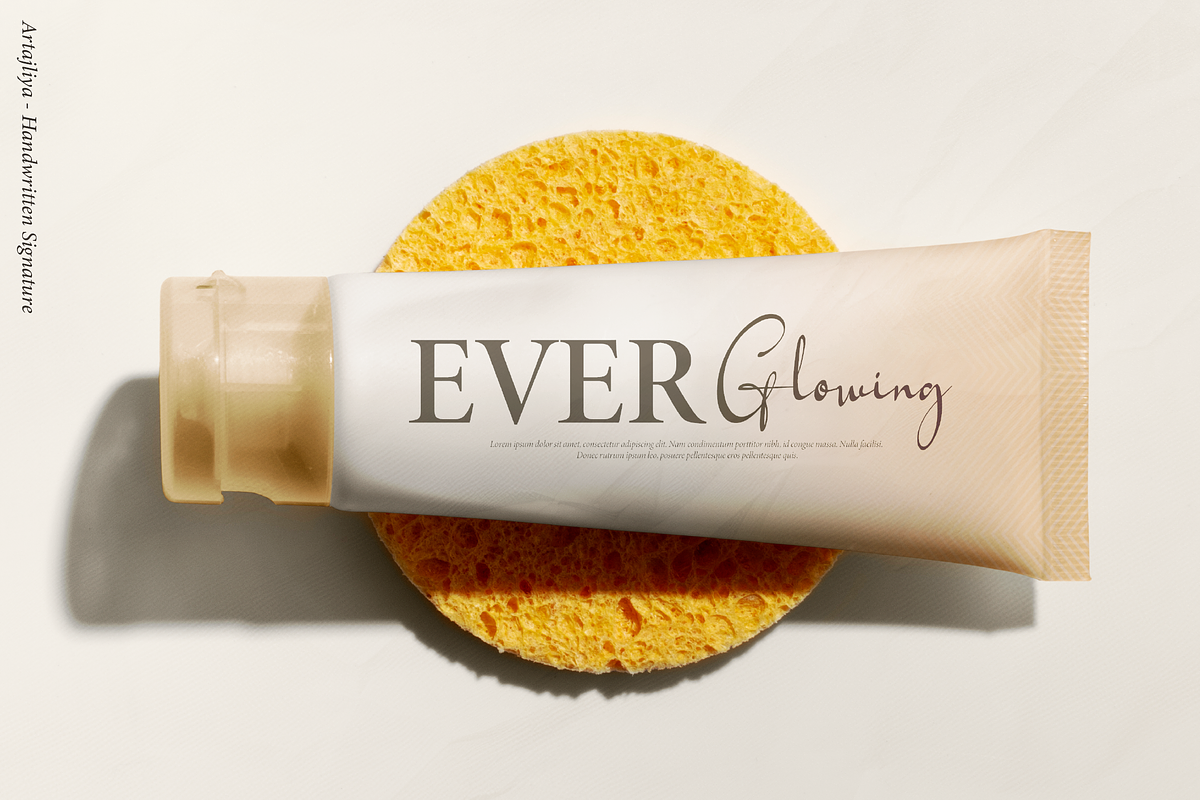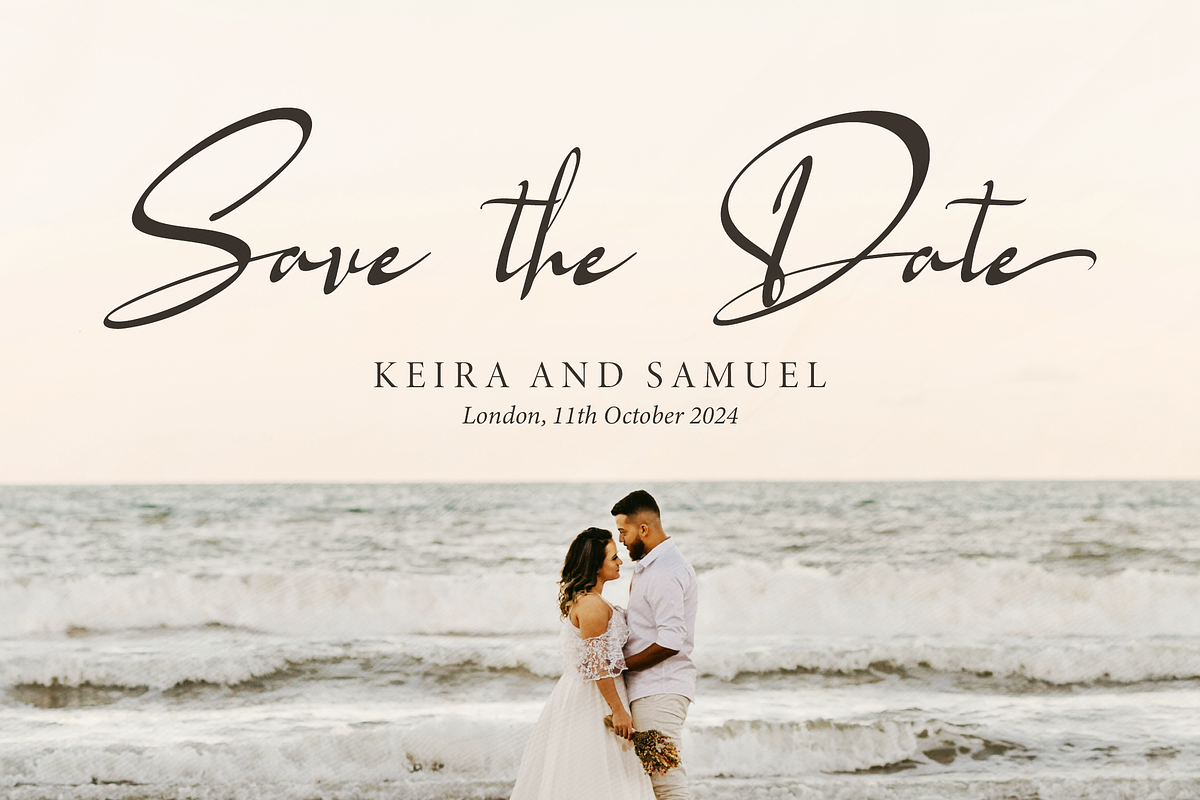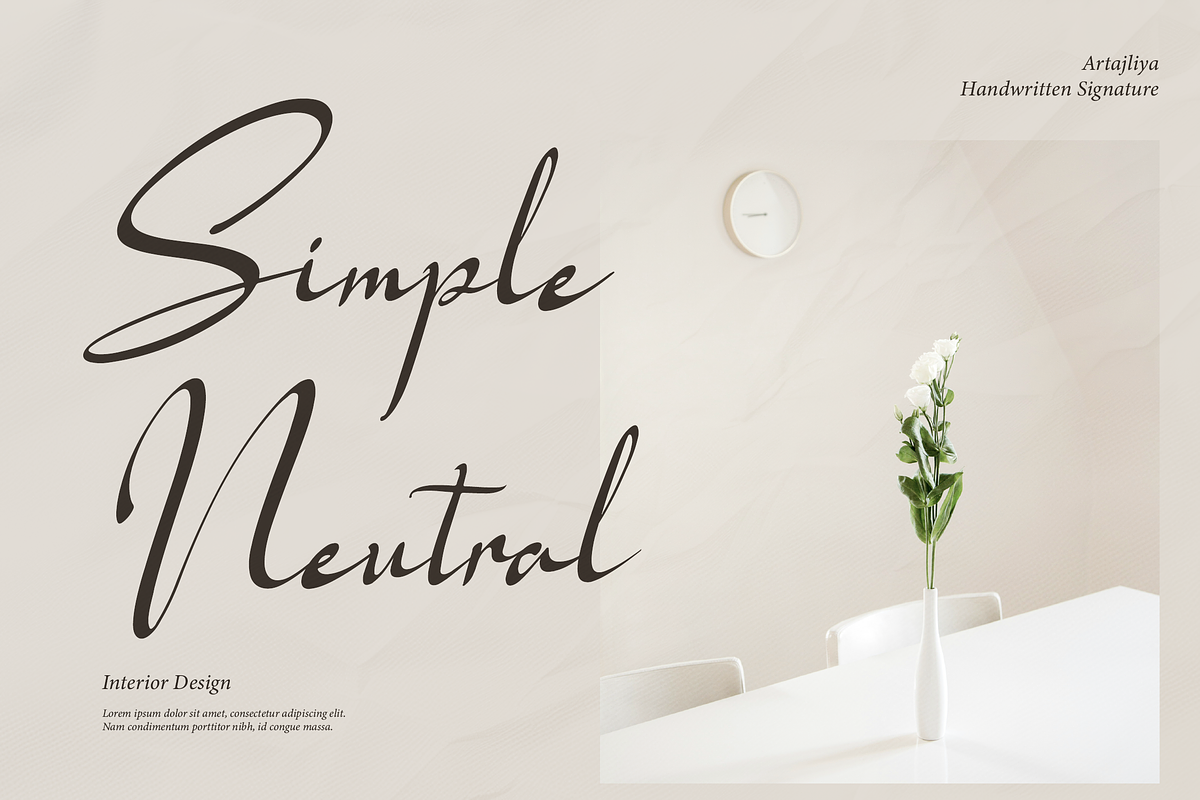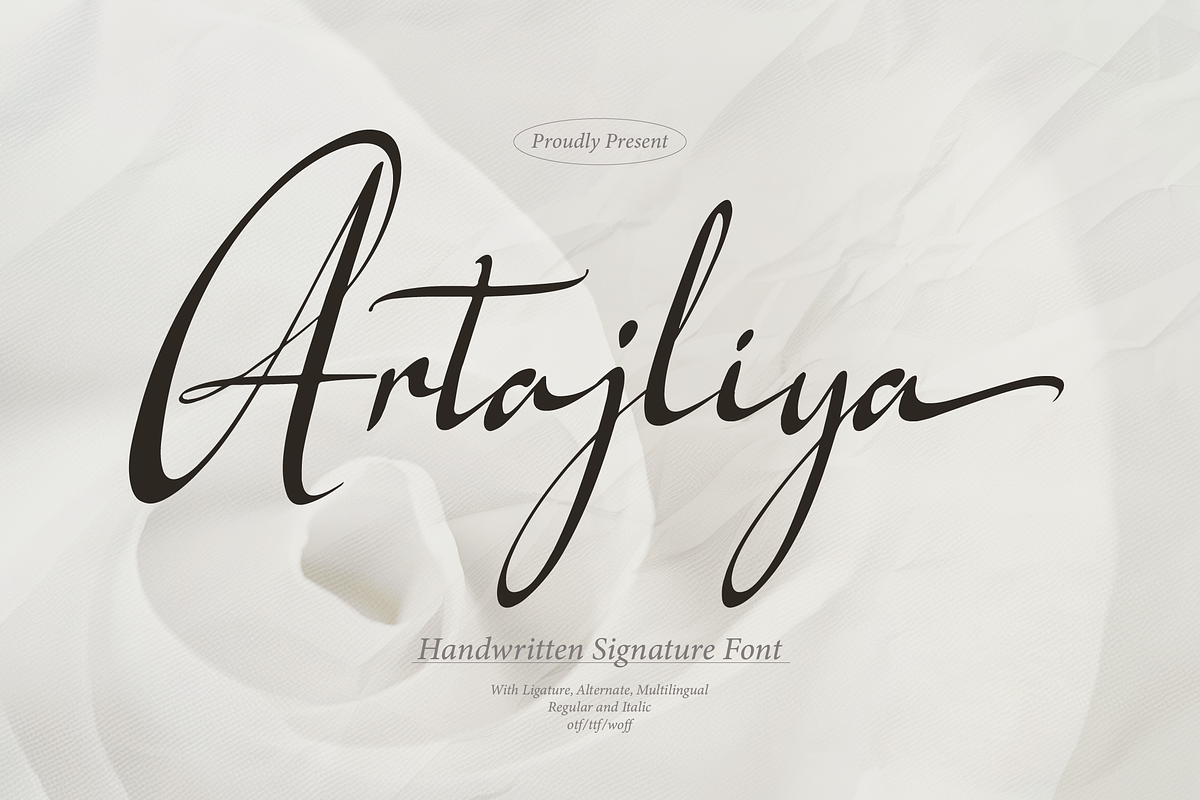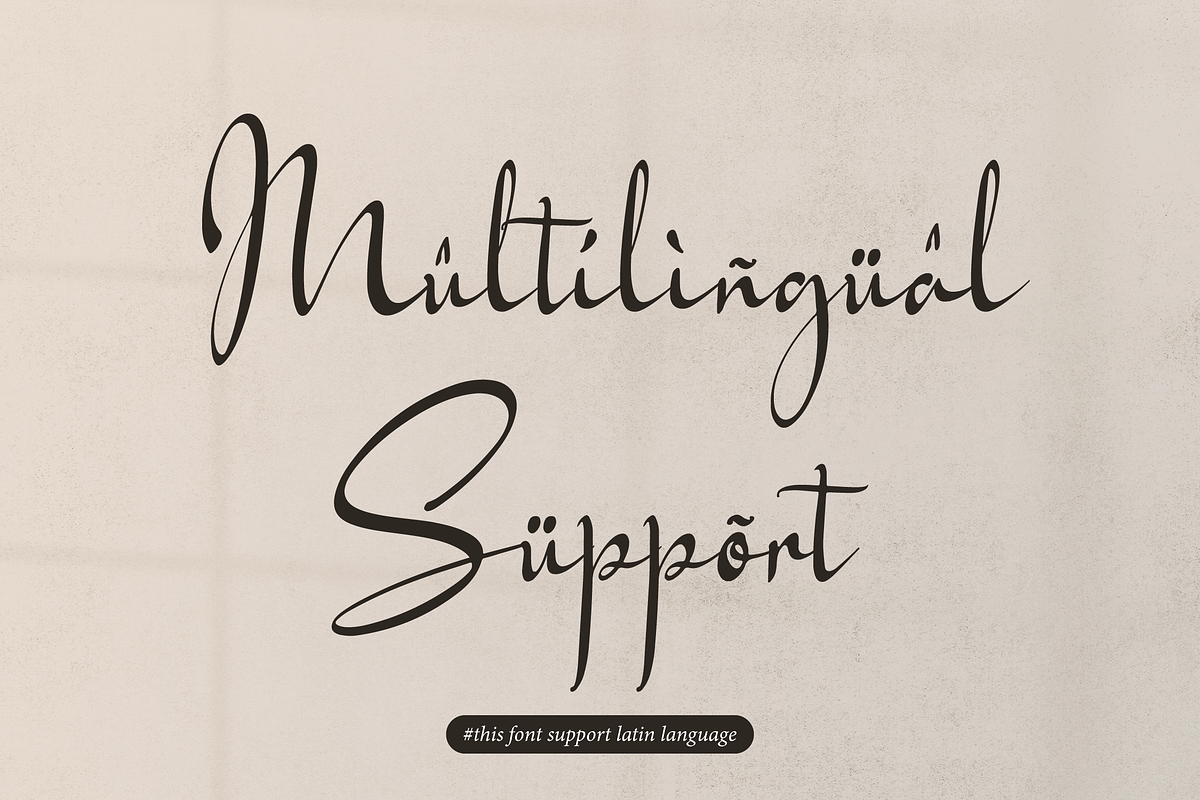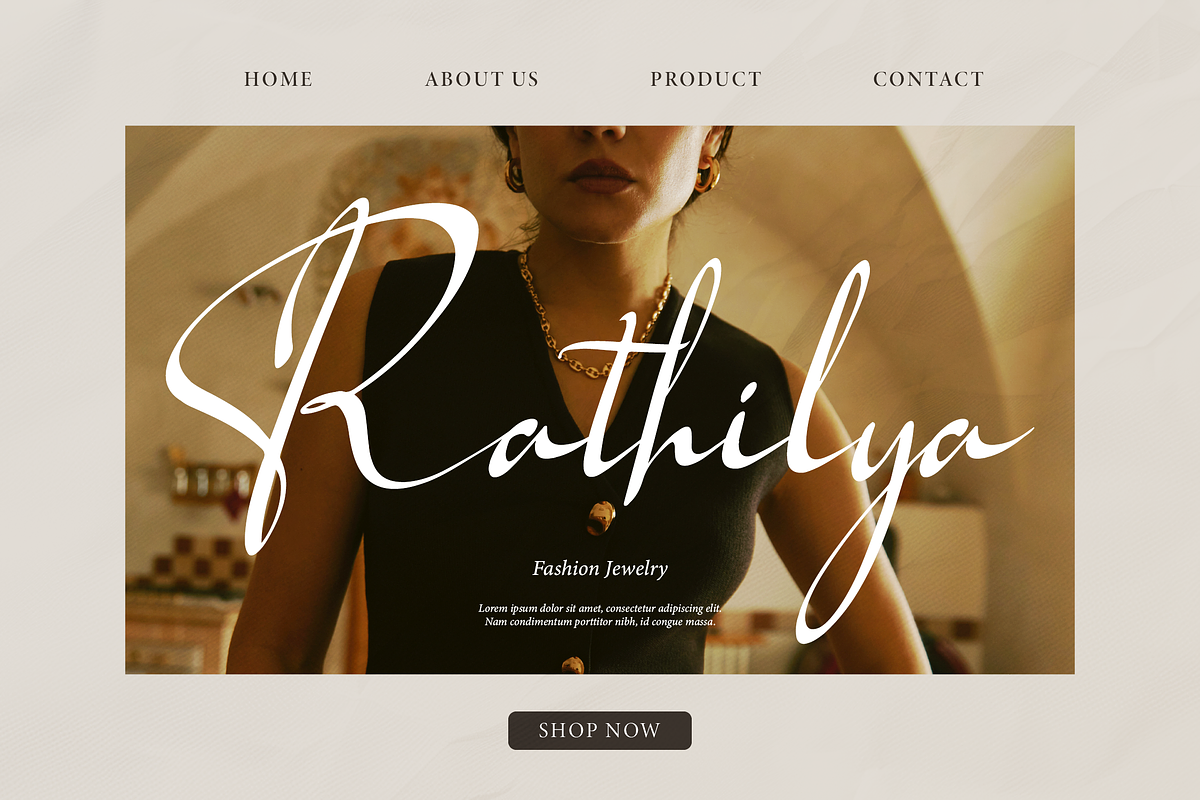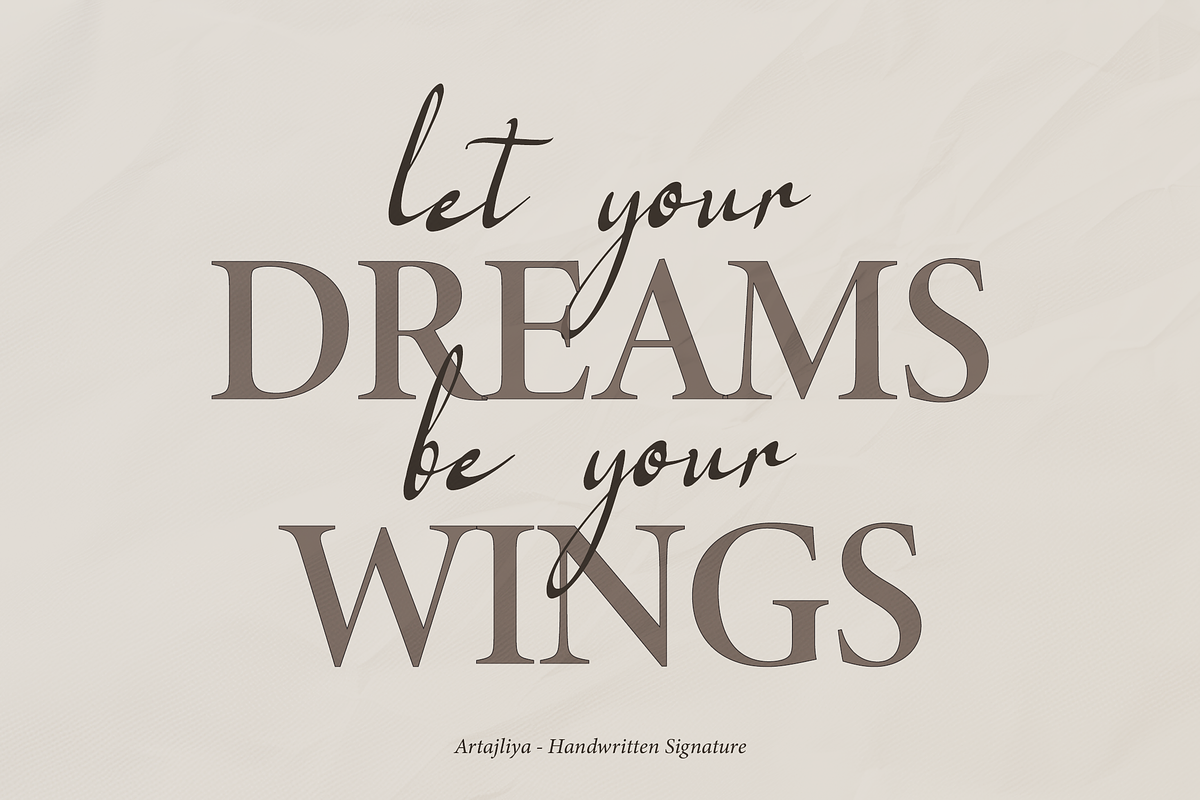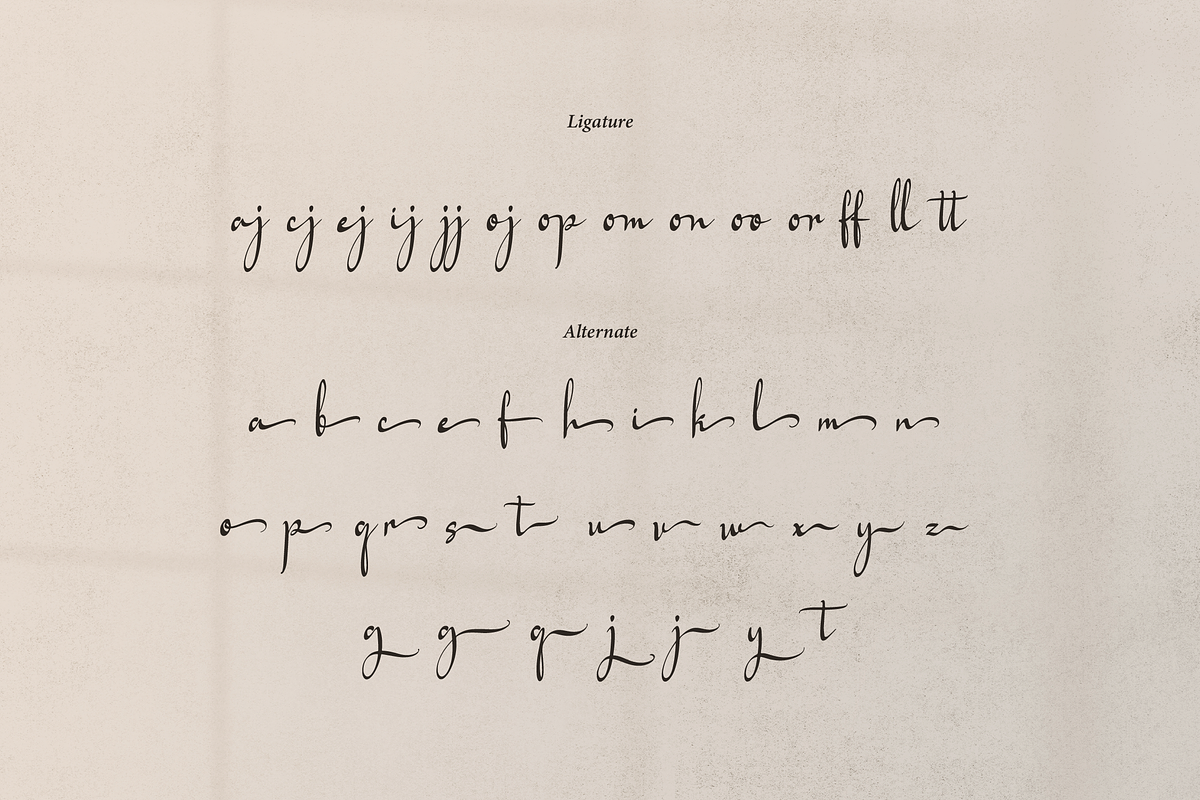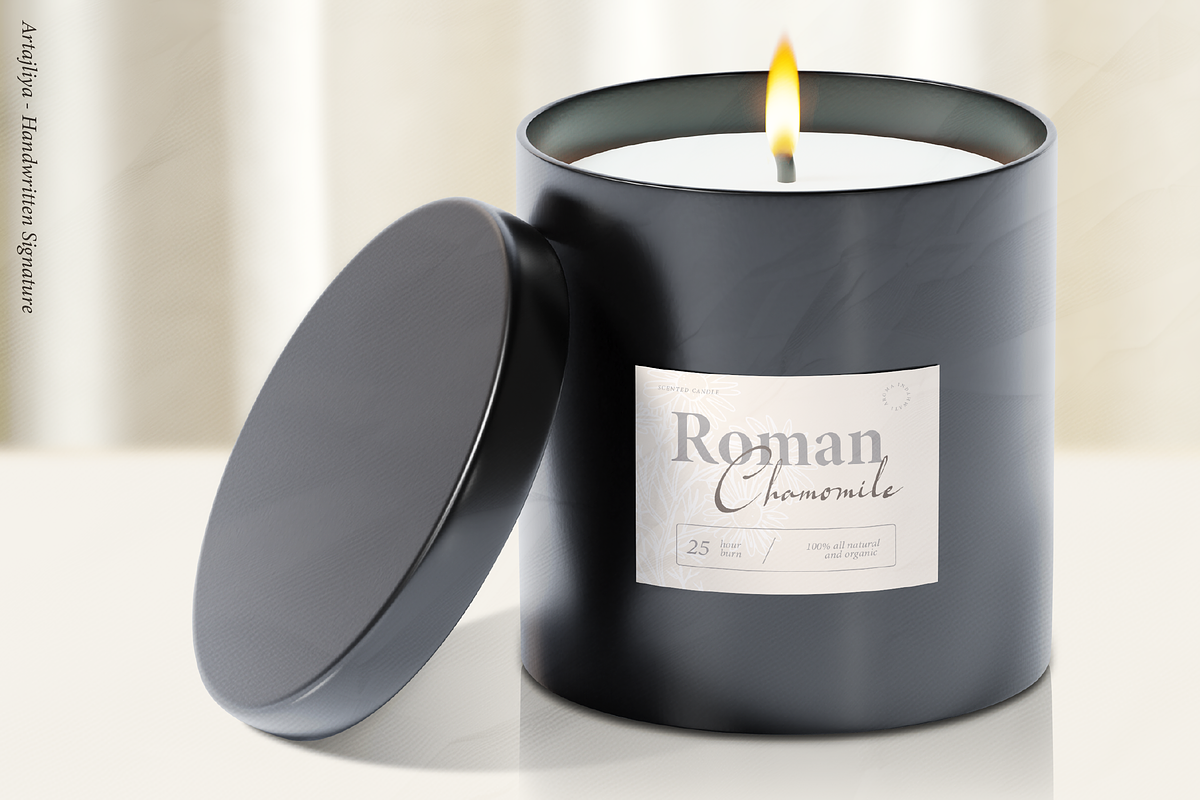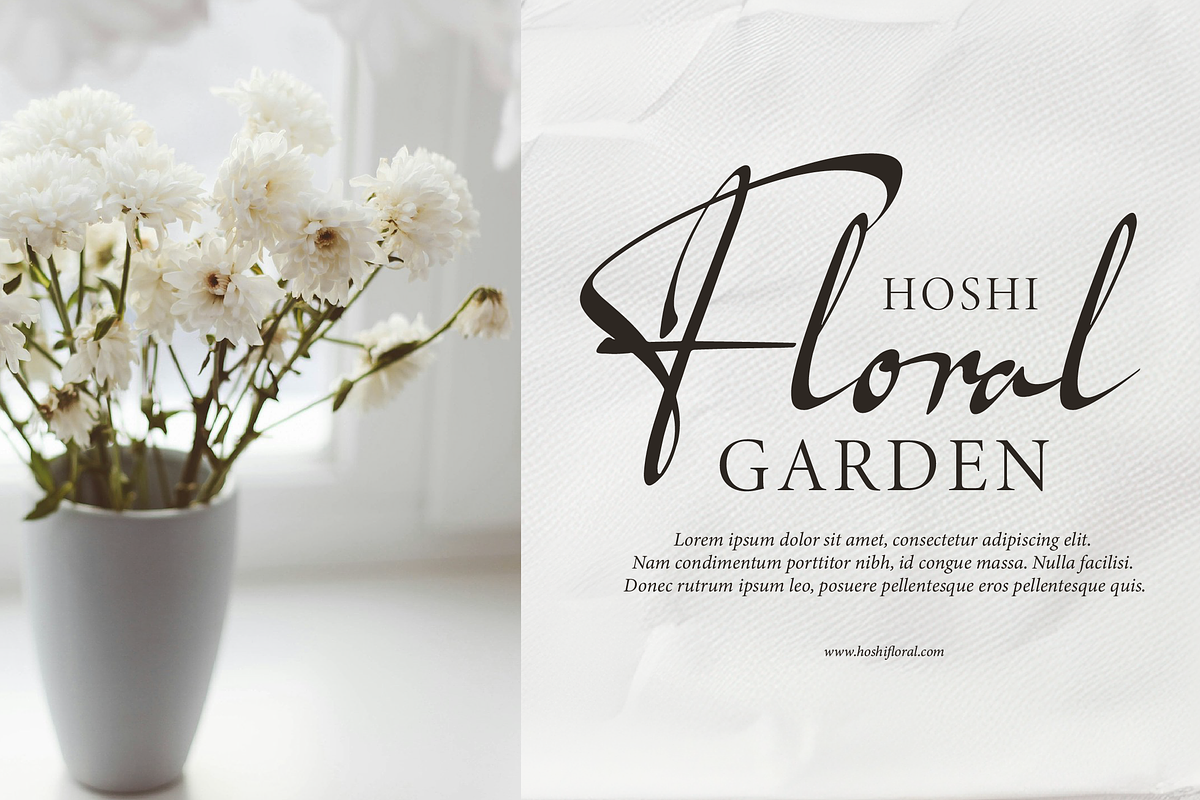
Artajliya | Handwritten Signature
Artajliya | Handwritten Signature, from Denustudios, suitable for any projects such as: logos, branding projects, homeware designs, product packaging, mugs, quotes, posters, shopping bags, t-shirts, book covers, name card, invitation cards, greeting cards, label, photography, watermark, special events, and all your other lovely projects that need a beautiful script taste.